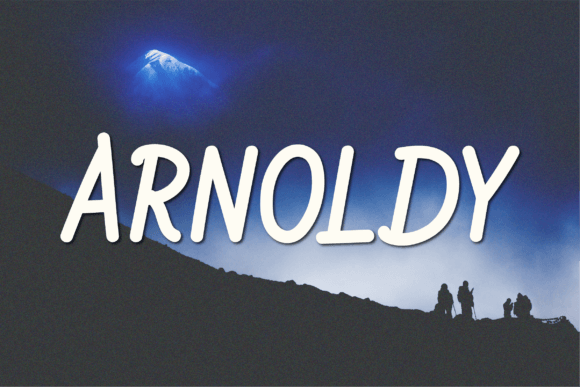
Unleash your creativity with Arnoldy Font - a whimsical script font that adds an enchanting touch to your designs. This all-caps handwritten font breathes life into your projects, whether they be crafts, digital designs, presentations, or heartwarming greeting cards. Arnoldy Font is the perfect companion for those who seek a unique and expressive font that stands out from the ordinary.
Embark on a journey of artistic exploration as you discover the versatility of Arnoldy Font. Let your imagination run wild as you craft eye-catching display posters that demand attention. Transform your digital designs into masterpieces with its charming and playful characters. Elevate your presentations with a touch of whimsy that captivates your audience. Create heartfelt greeting cards that convey your emotions with a personal touch. The possibilities are endless with Arnoldy Font.
Immerse yourself in the delightful world of Arnoldy Font and let its quirky personality infuse your creative endeavors with joy and inspiration. Make a statement with your designs and leave a lasting impression on all who encounter them. Arnoldy Font is more than just a font; it's an invitation to let your creativity flourish. Embrace its playful spirit and watch your designs come to life.